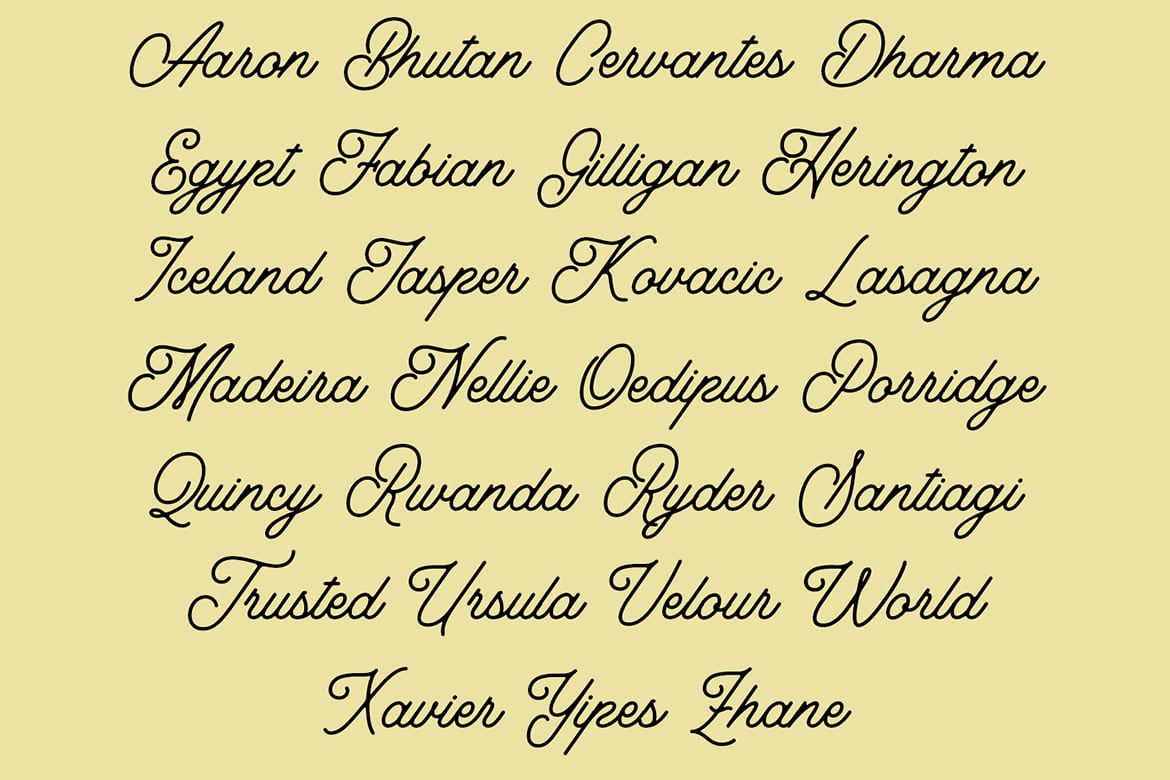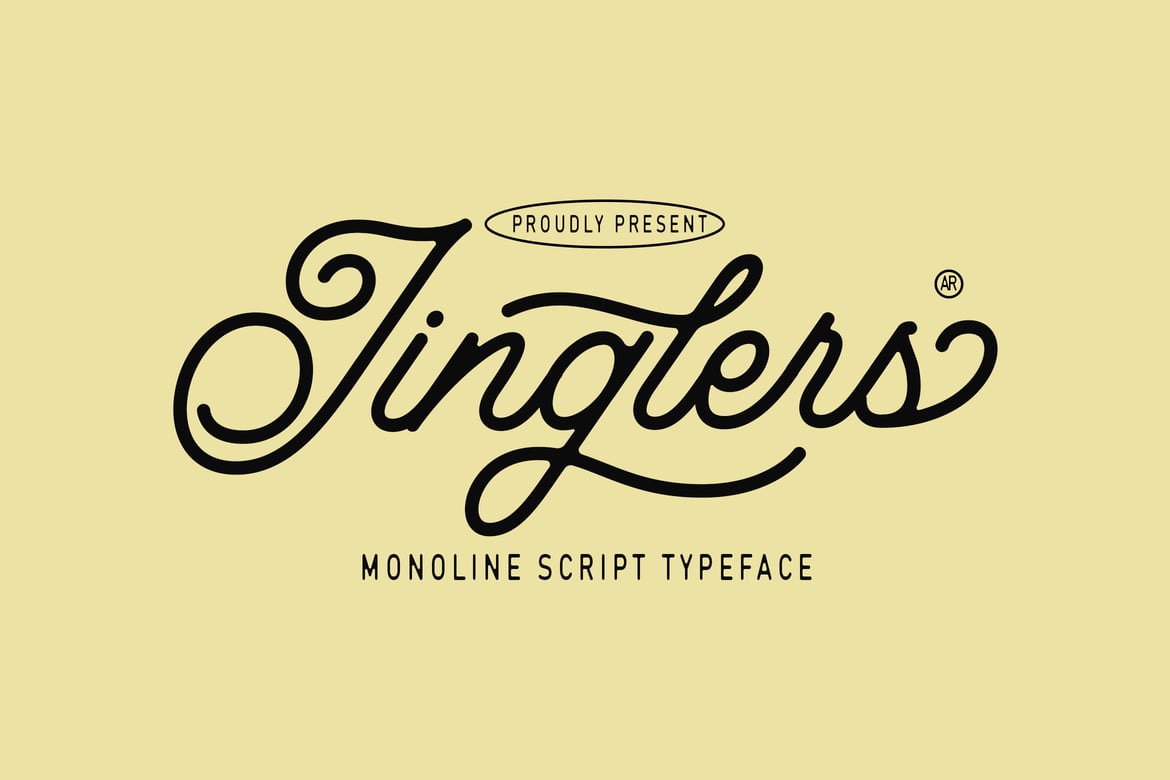
Jinglers – Monoline Script Font
* Monoline Design: Jinglers features a consistent stroke weight throughout each character, giving it a clean and uniform look. This monoline approach adds a level of sophistication and modernity to the classic script style.
* Vintage Appeal: The design of Jinglers is rooted in the aesthetics of the past, drawing inspiration from mid-20th-century scripts. Its cursive, flowing letterforms capture the essence of retro signage, advertising, and packaging, making it perfect for projects that seek to channel a vintage vibe.
* Versatility: Despite its vintage origins, Jinglers is versatile enough to be used in a variety of modern design contexts. It works beautifully in logos, branding, packaging, and even editorial design, providing a touch of classic elegance wherever it’s applied.
* Elegance in Simplicity: The simplicity of its monoline construction ensures that Jinglers remains legible and visually appealing at various sizes. Its smooth curves and balanced proportions make it suitable for both large headlines and smaller body text, offering flexibility across different mediums.
* Applications: Jinglers shines in projects that require a balance of tradition and modernity. It’s perfect for creating logos that need to convey a sense of heritage, wedding invitations that call for a touch of romance, or product packaging that wants to stand out with a handcrafted feel.
* Stylistic Alternatives: Jinglers may include alternate characters and ligatures to enhance its versatility, allowing designers to customize the font to better suit their specific design needs.